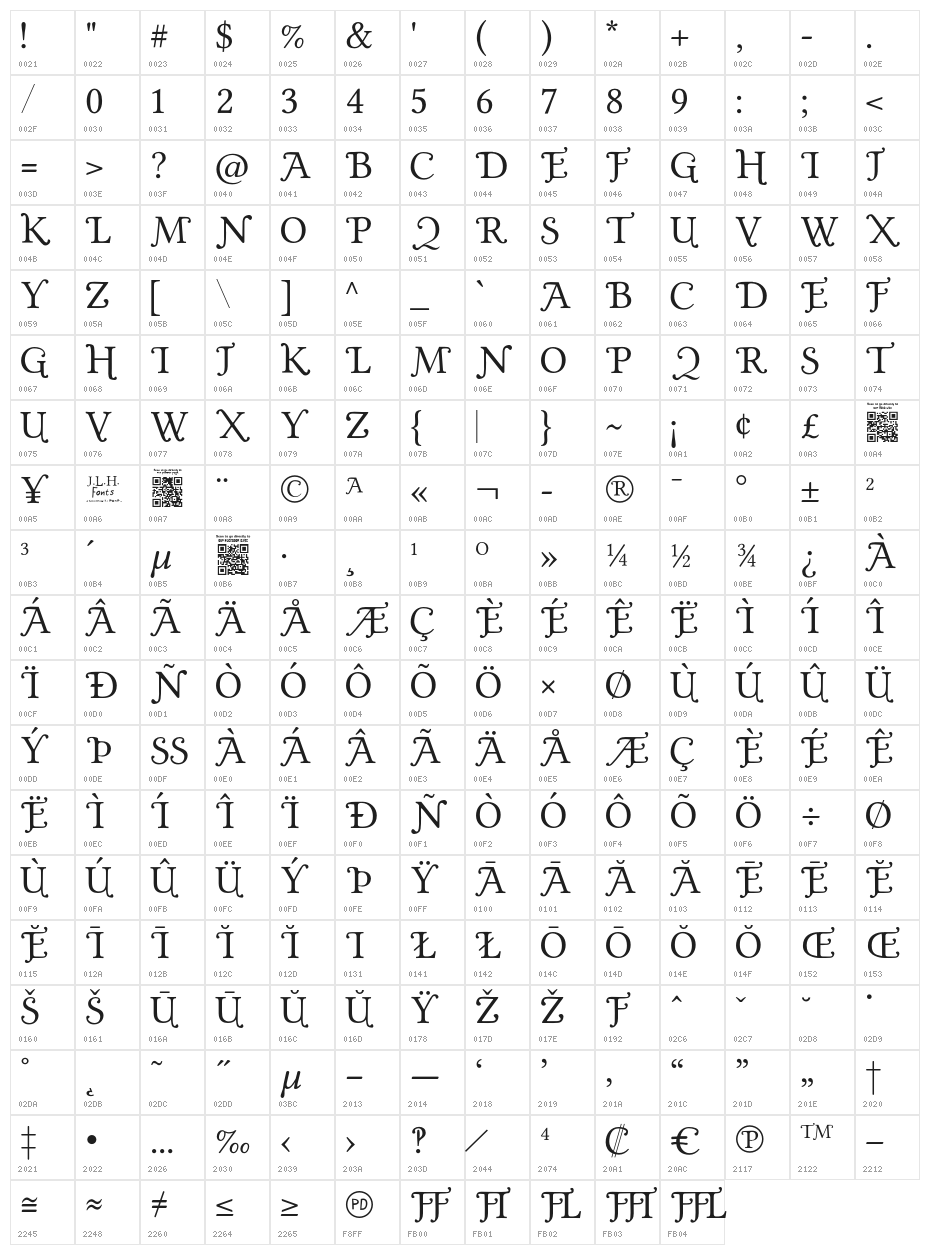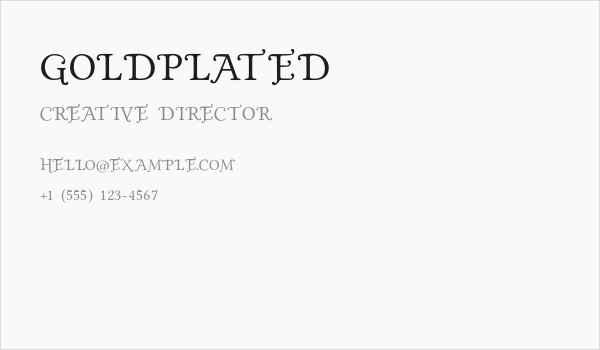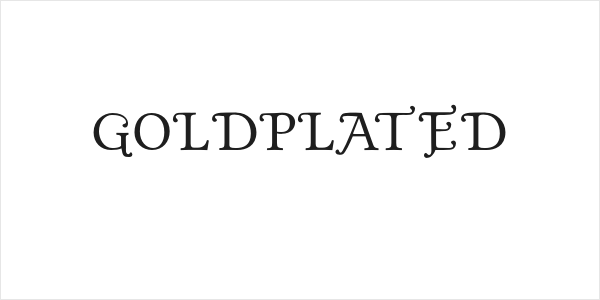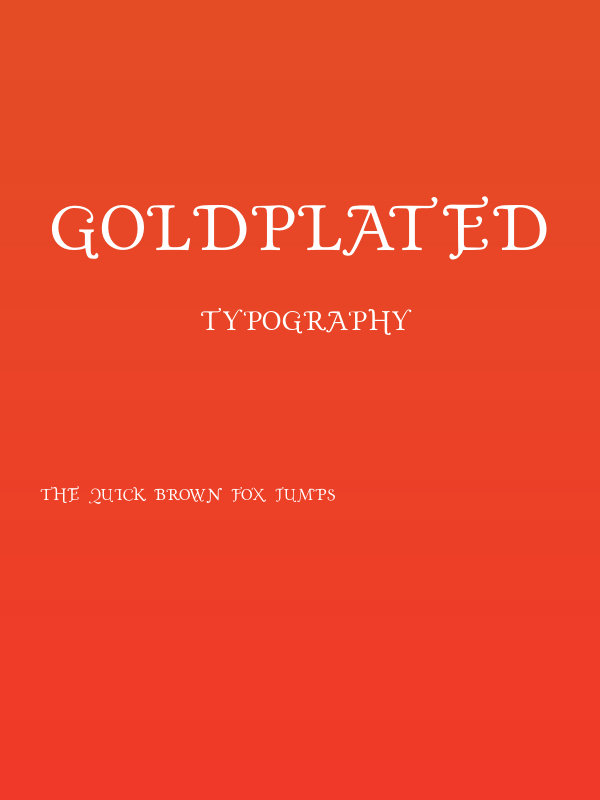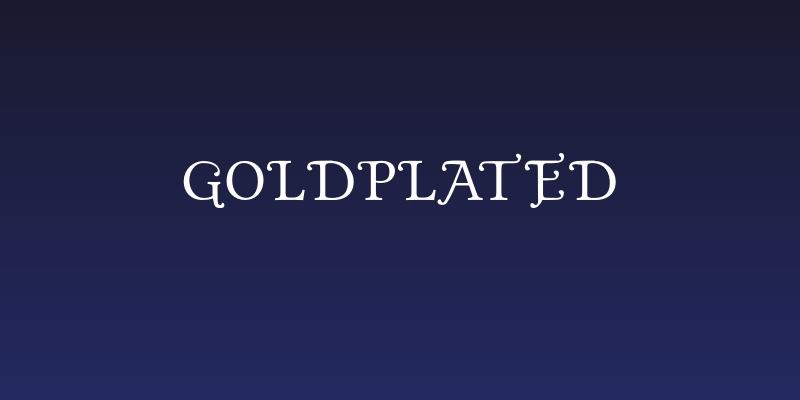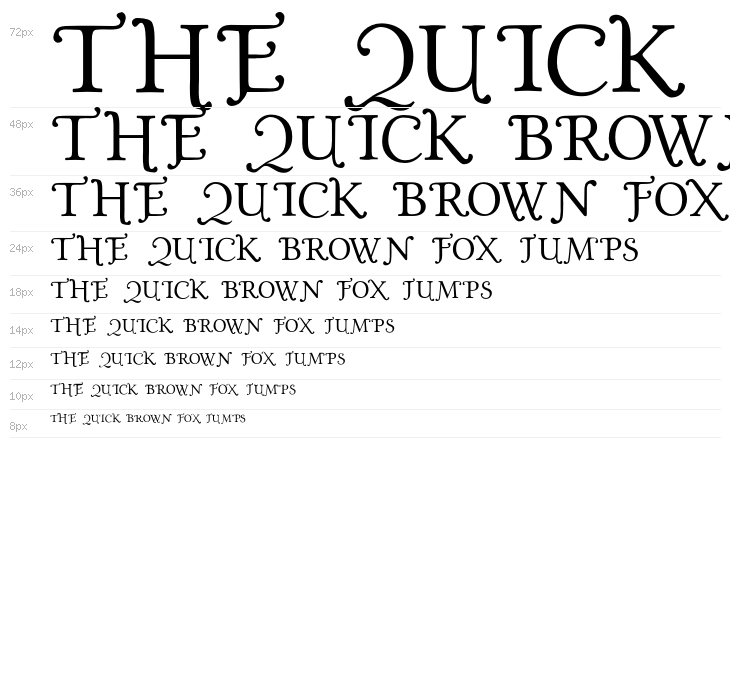
GoldPlated Font
GoldPlated Description
This font features a classic and elegant serif design with distinctive curls and flourishes on certain characters, giving it a sophisticated and ornamental appearance. The uppercase letters are bold and commanding, while the lowercase letters maintain a consistent style with subtle variations in stroke width. The numerals are clear and legible, with a traditional look that complements the overall design. Special characters are thoughtfully crafted, maintaining the decorative theme. This font's unique style makes it suitable for projects that require a touch of elegance and tradition.